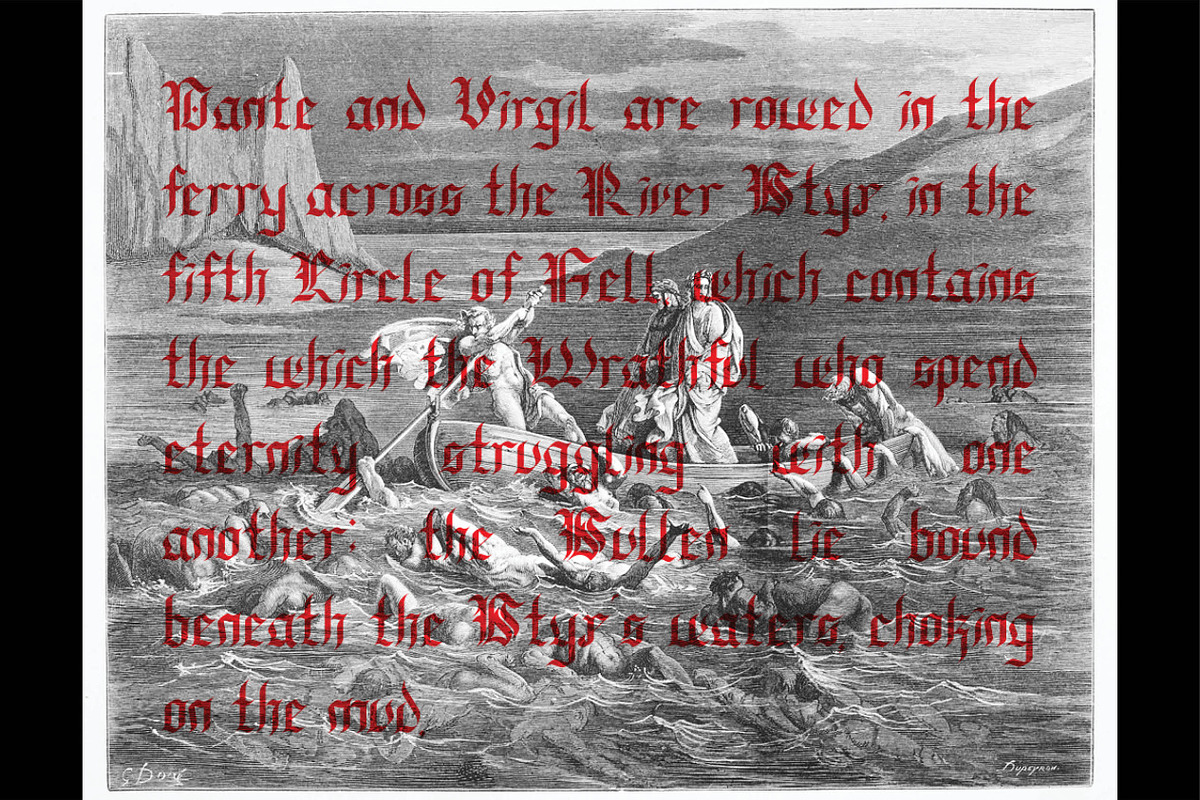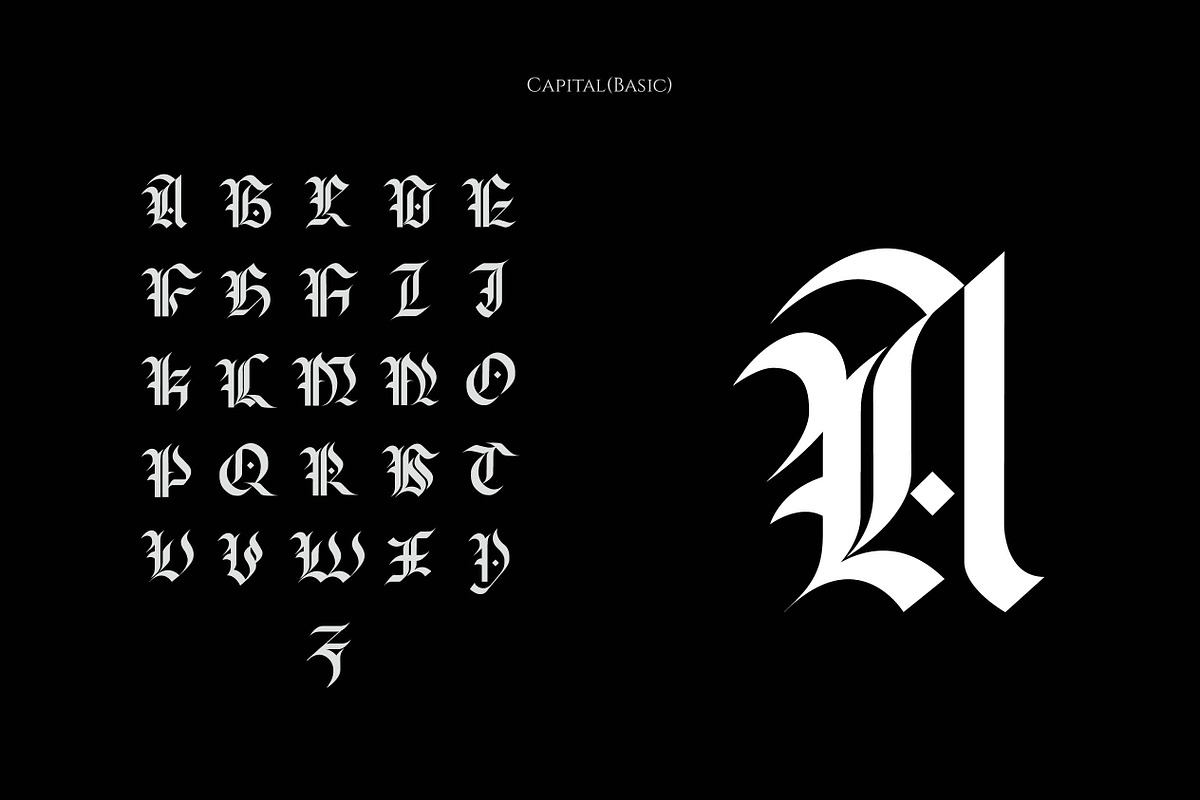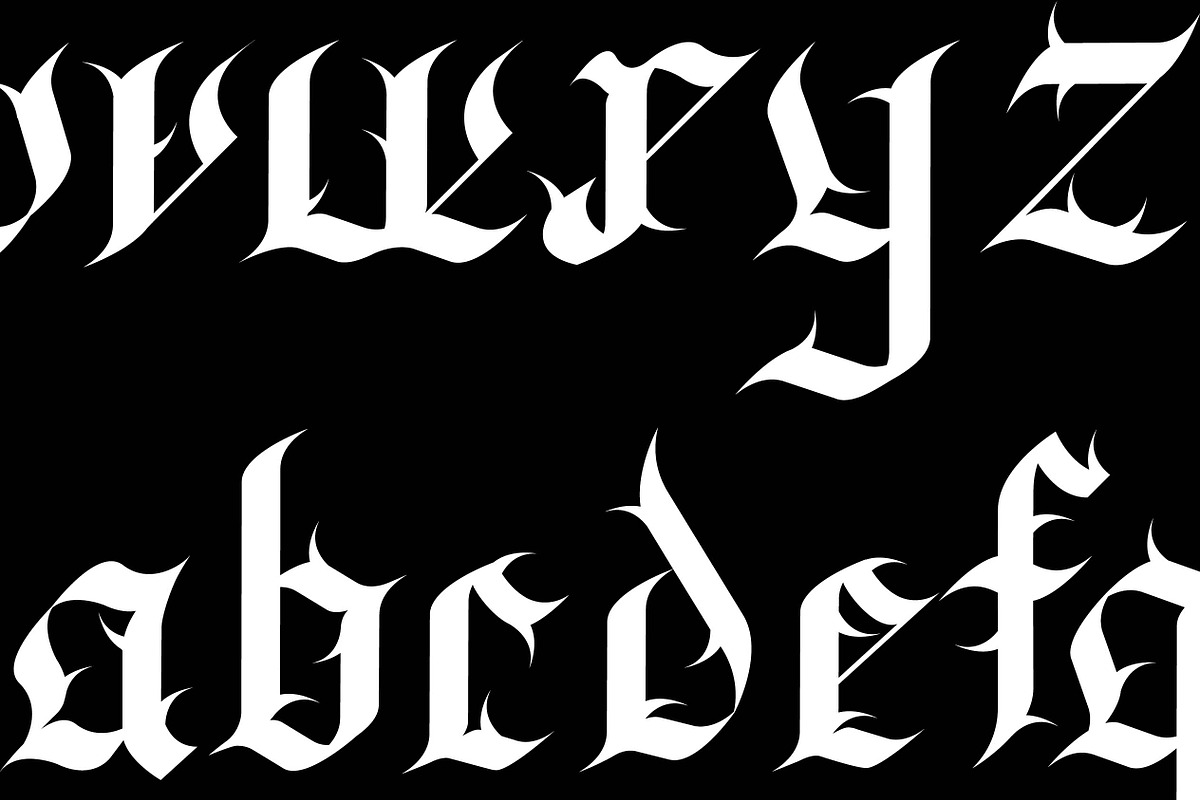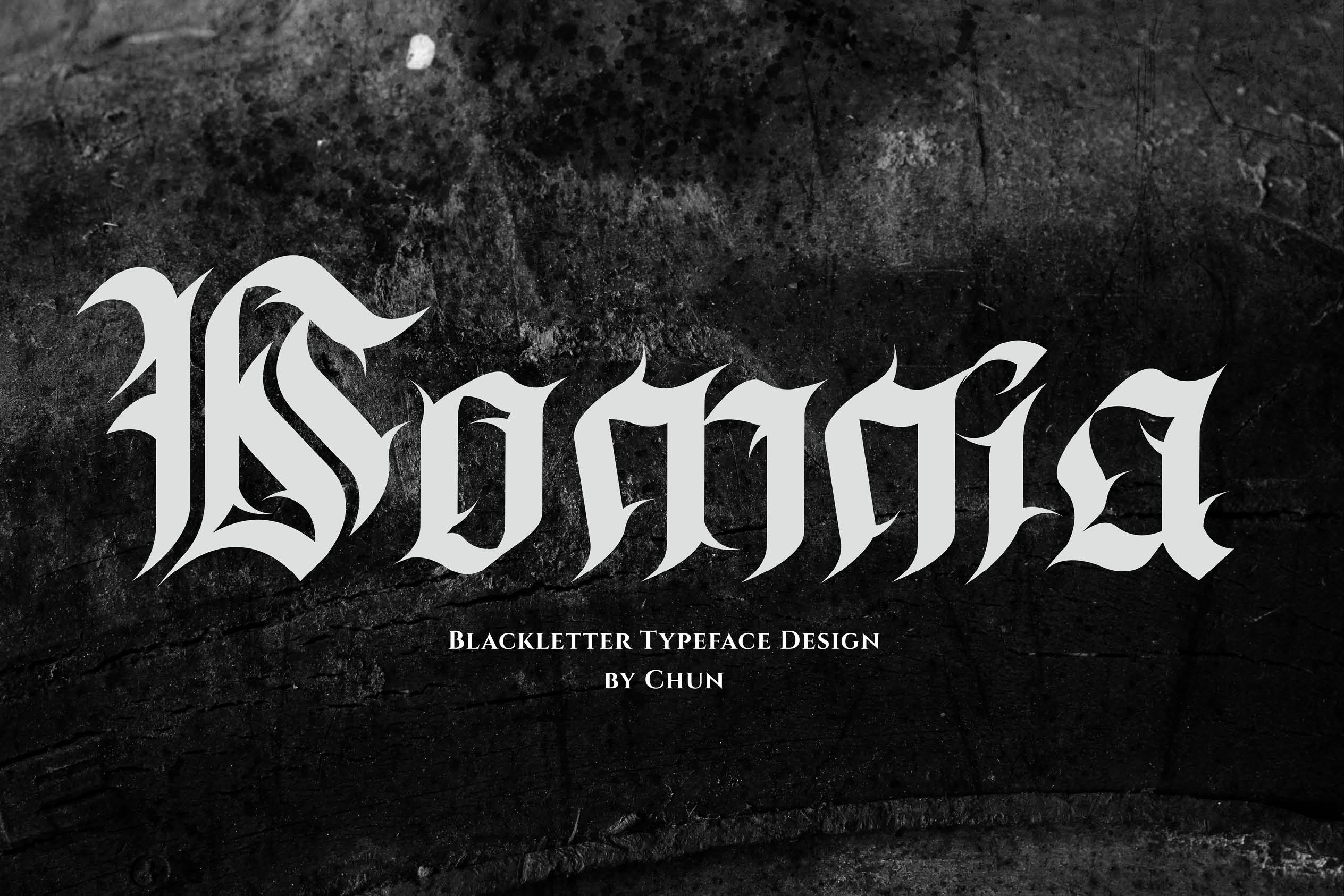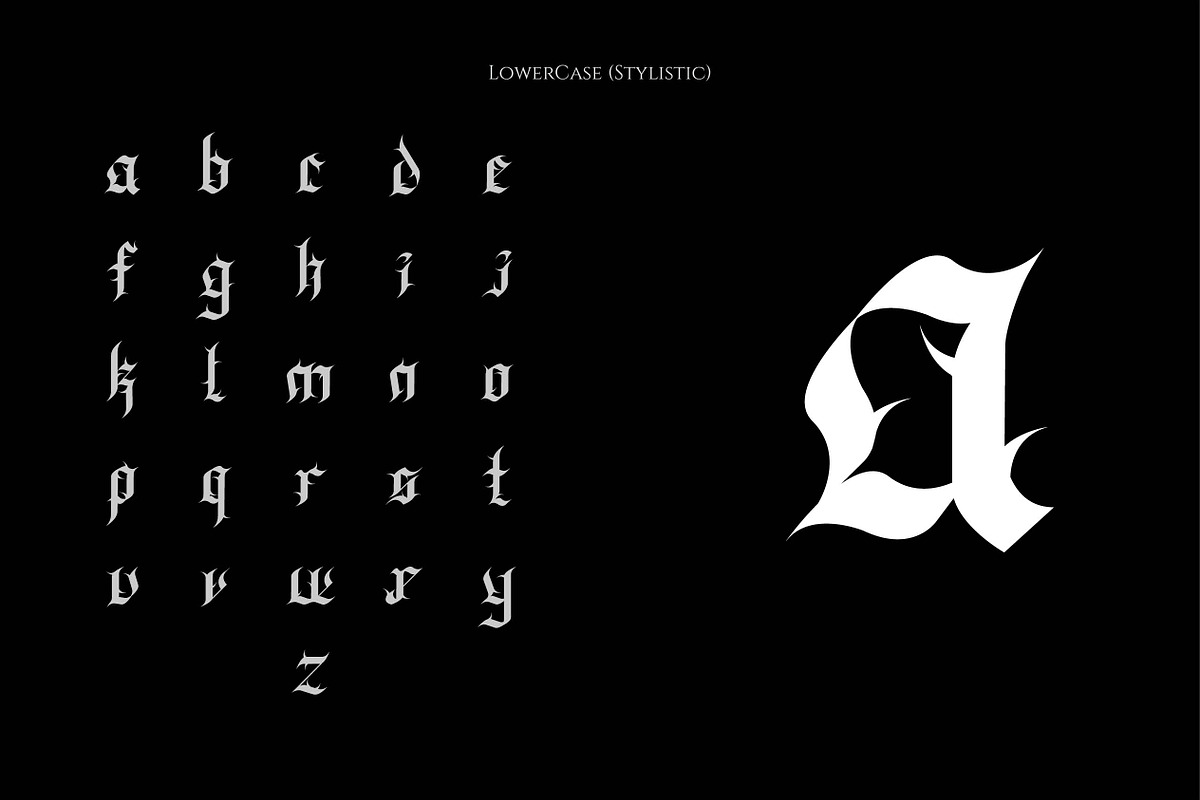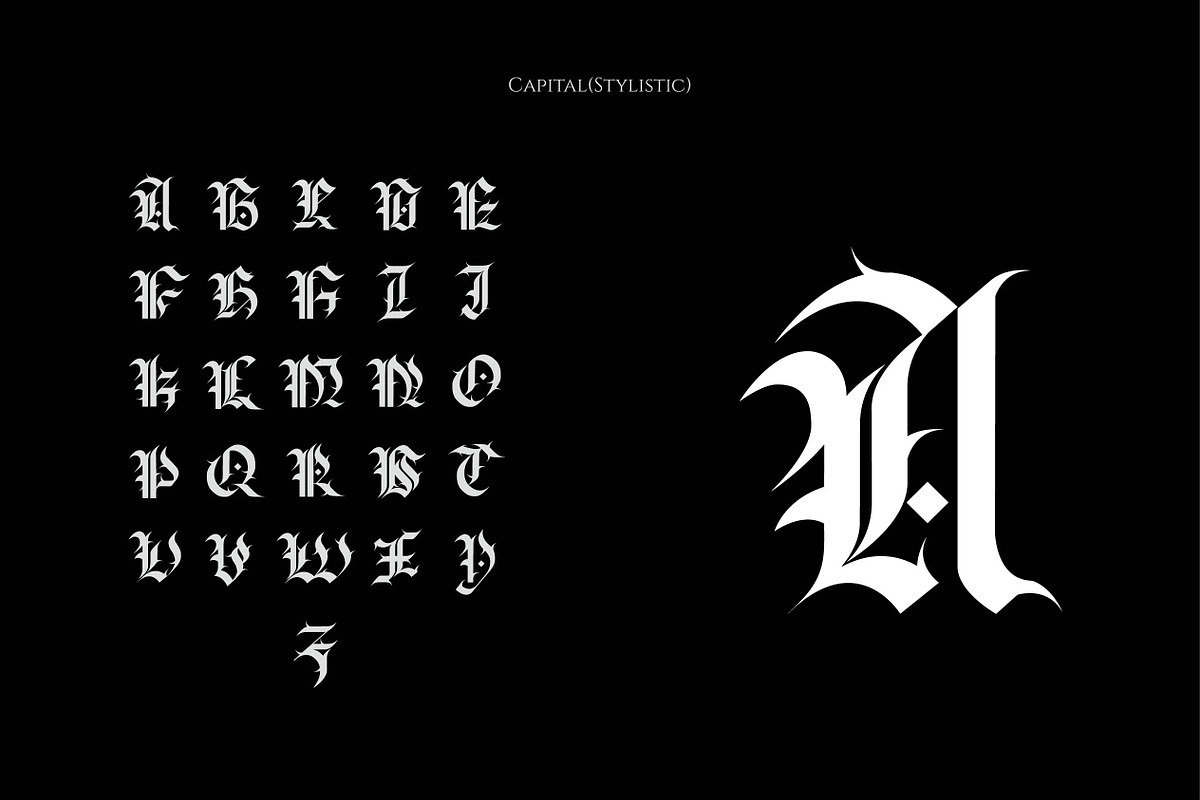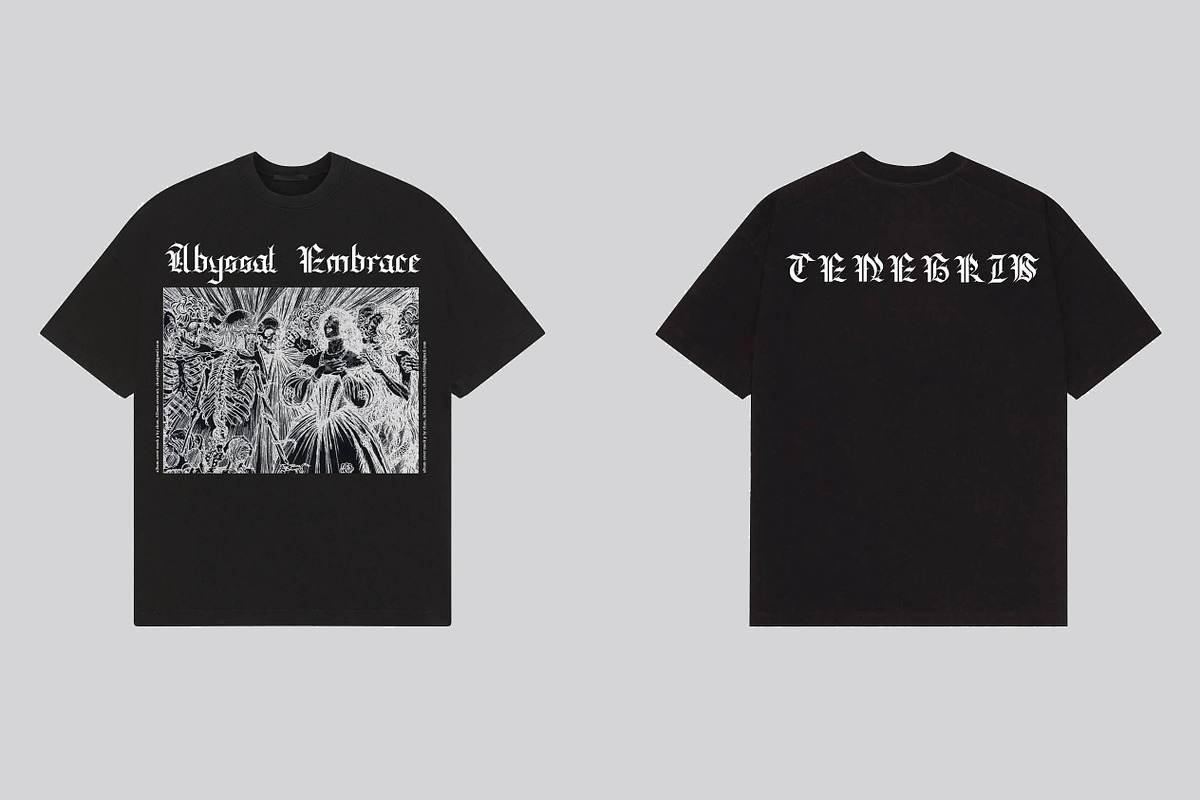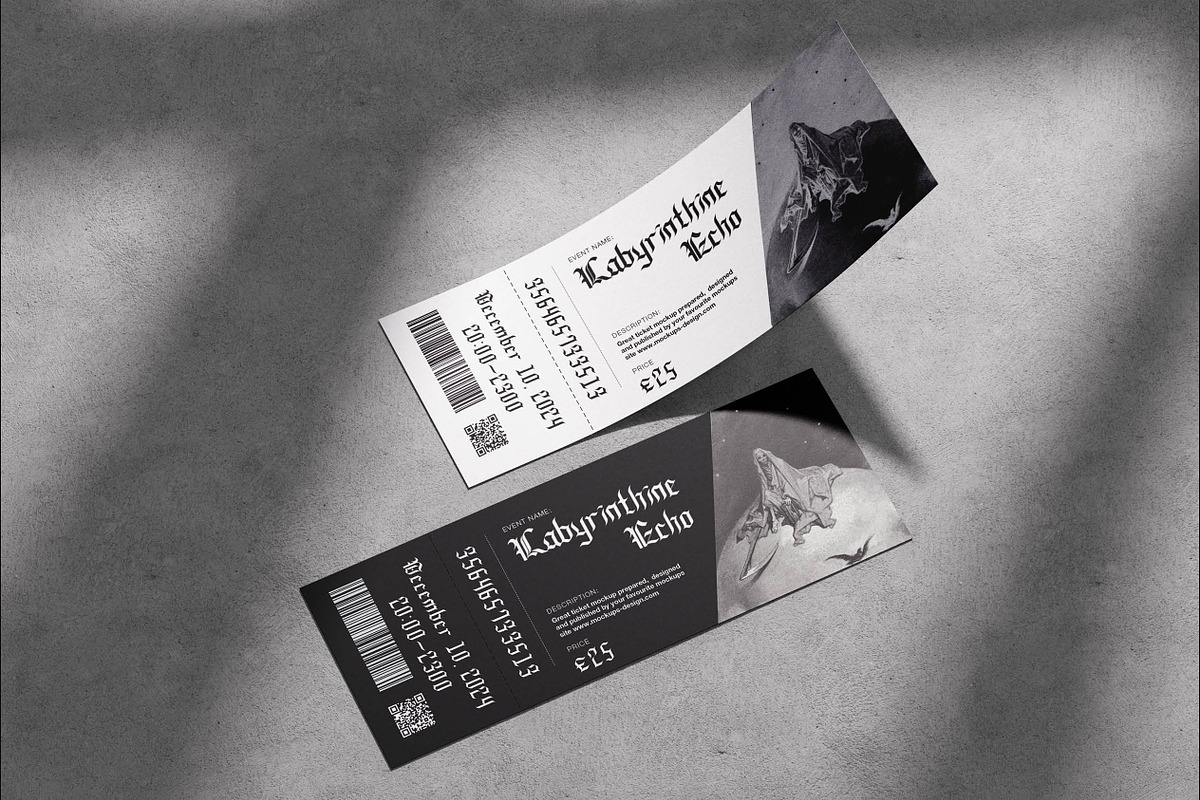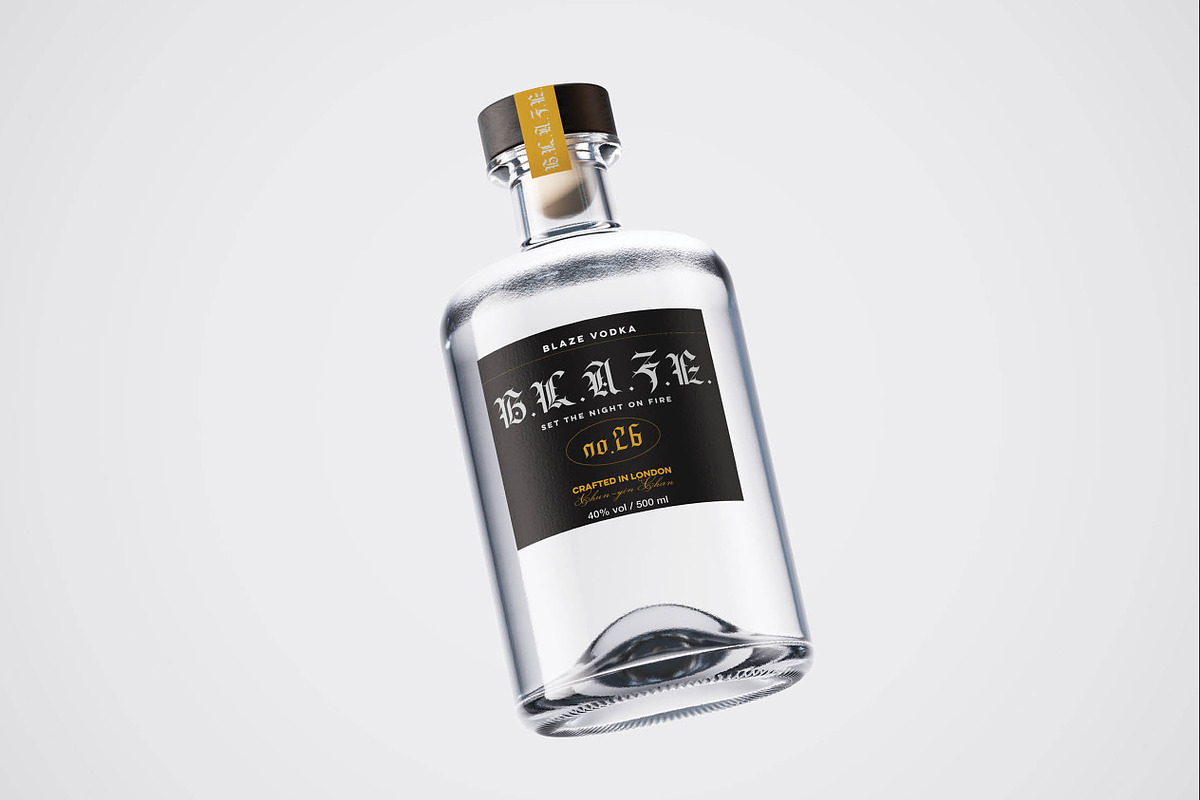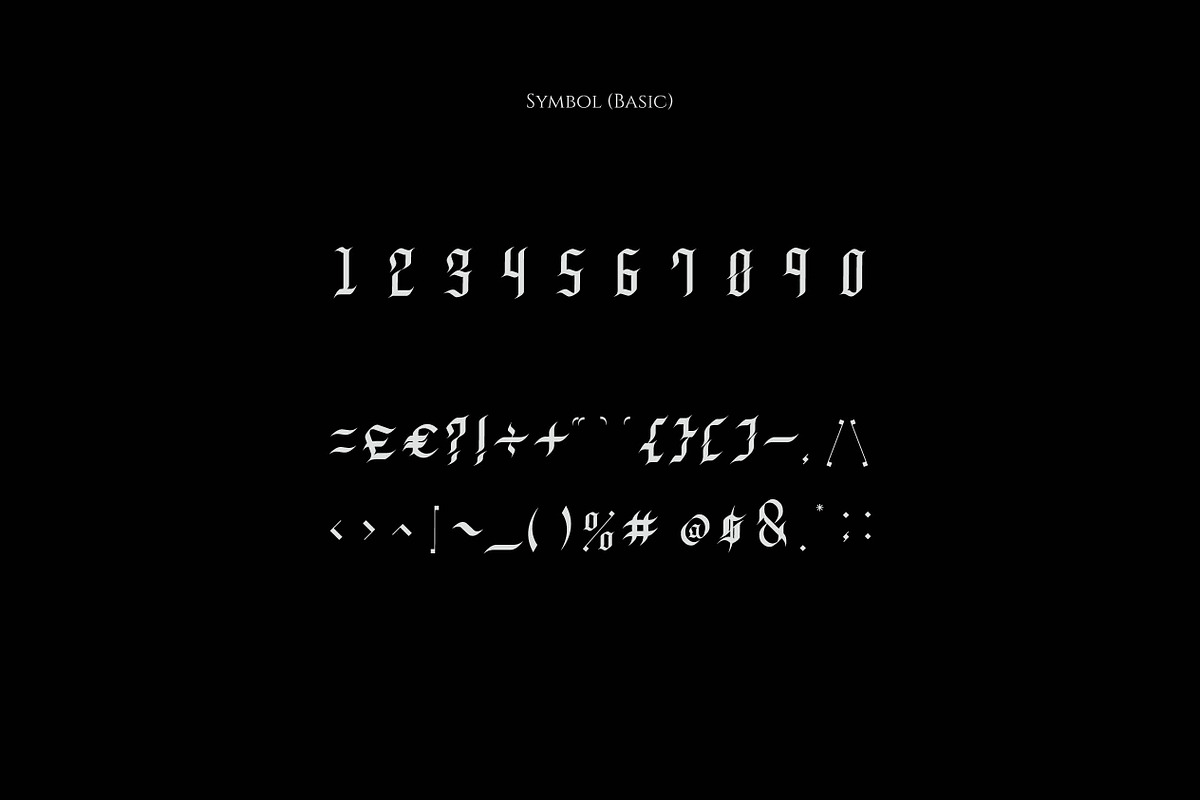
Somnia BlackLetter Typeface
Developed from hand-illustrated calligraphy, Somnia is an intricate and unique black letter style font inspired by early baroque architecture and Rotunda manuscript style typeface.
After months of research and hand drawn development, Somnia is available in both “Stylistic” and “Basic” typeface styles to suit any highly characterized, yet timeless visual project. Each letter originated from hand-drawn techniques to maintain an organic and expressive visual effect.